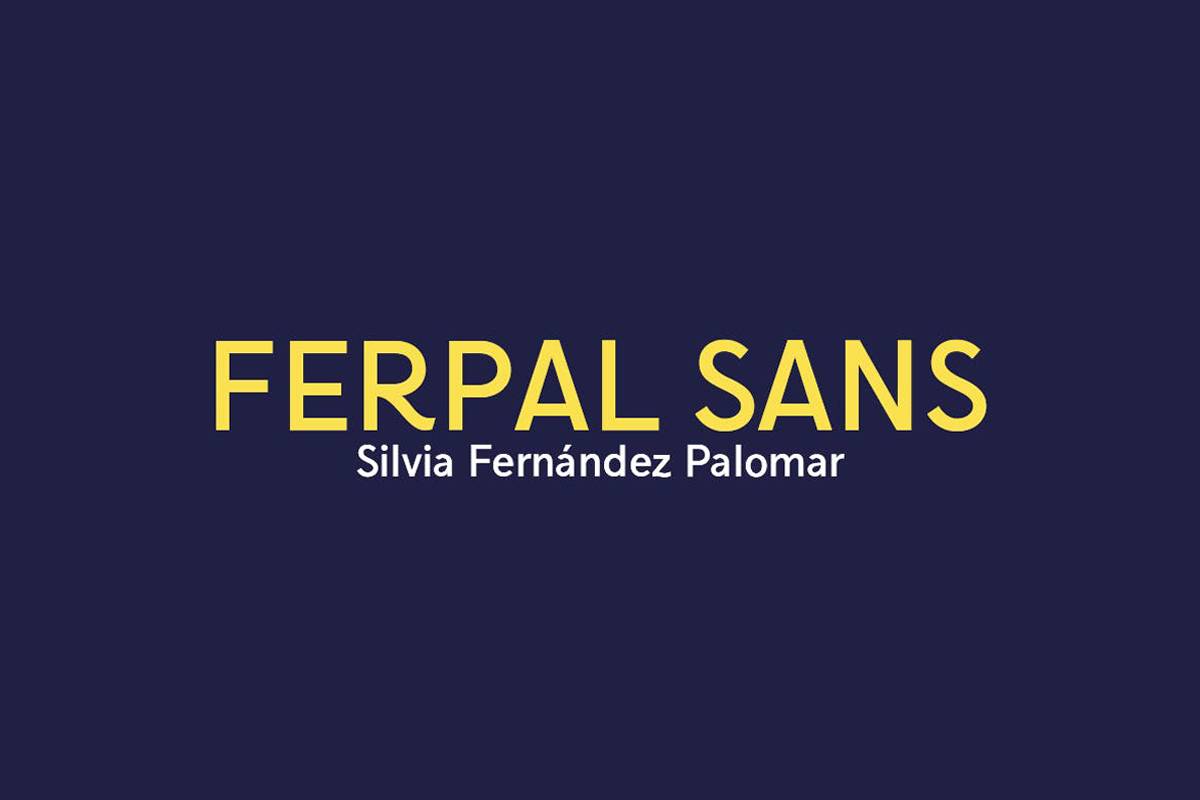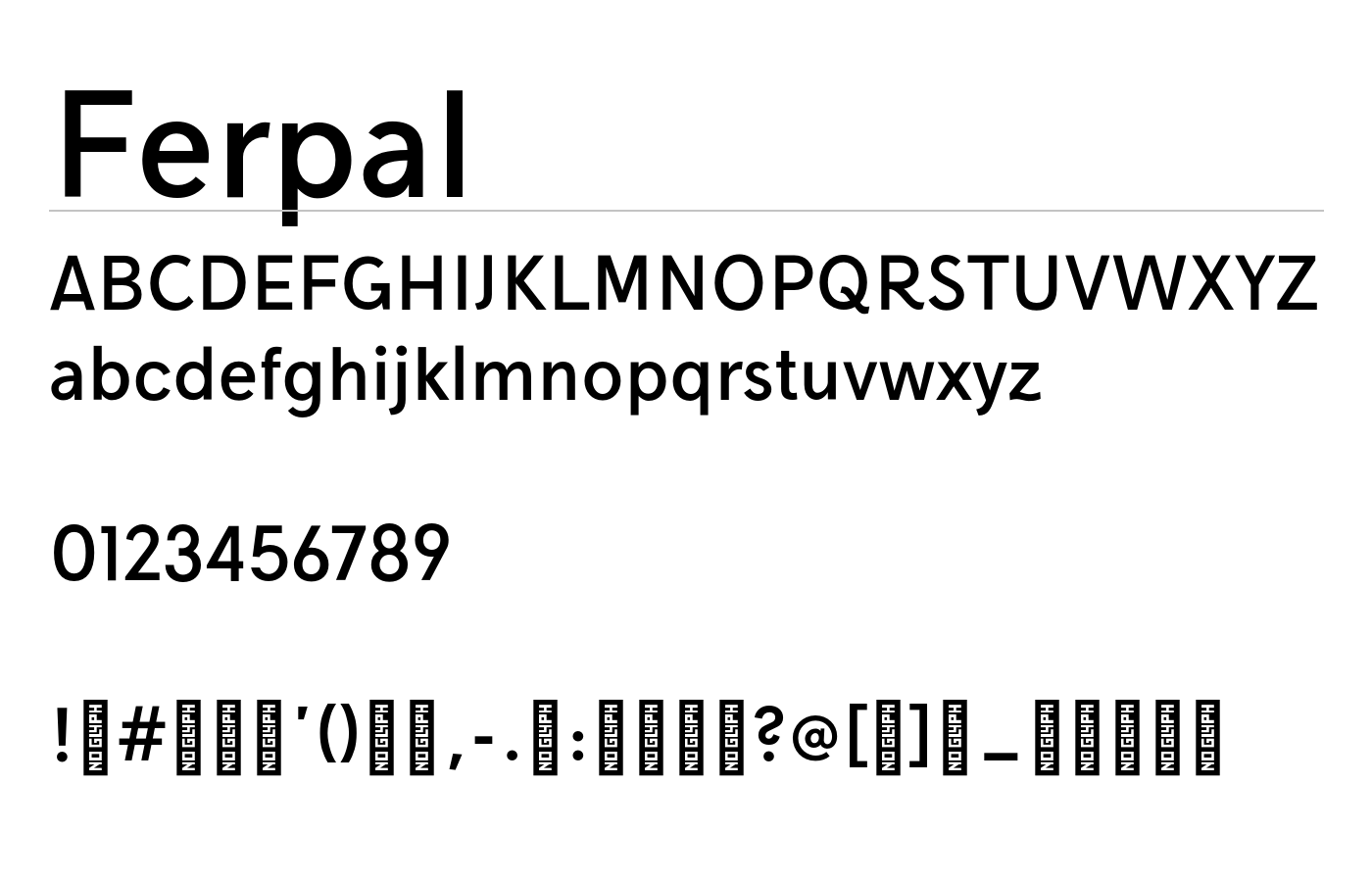
Ferpal Sans is a clean and modern sans serif typeface with a balanced weight and a slightly condensed width, making it highly legible and versatile. Its simple geometric shapes and consistent stroke contrast give it a neutral yet professional appearance, suitable for both headlines and body text. This font works well for corporate branding, editorial design, and digital interfaces where clarity and contemporary style are key.
Ferpal Sans Typeface
About Ferpal Sans Typeface
| Designer | Silvia Fernández Palomar |